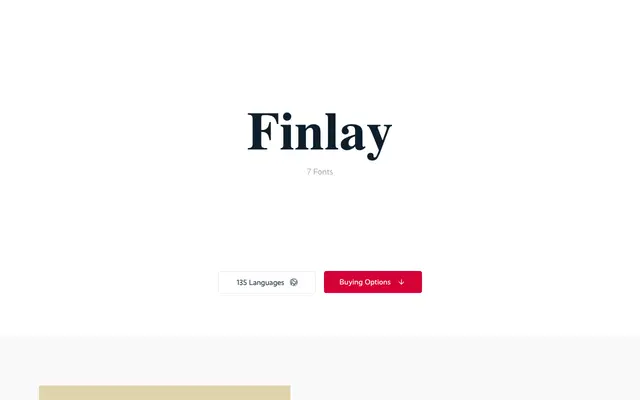
Finlay
Supertype · Martin Wenzel
A warm, upright script by Martin Wenzel that blends humanist sans-serif construction with script letterforms across seven weights.
Originally developed for a children's TV programme pitch in Germany, Finlay combines script letterforms with humanist sans-serif characteristics and upright italic forms to produce a distinctly friendly register. Seven weights run from Light to Black, giving the family range across display and branding contexts where approachability matters. The 947-glyph set covers 135 languages, making it a broadly deployable choice for warm, informal communication.
Finlay is described by the foundry as most obviously a script font, but one that blends humanist sans-serif and upright italic letterforms, making it an upright script with strong sans influence rather than a flowing cursive.